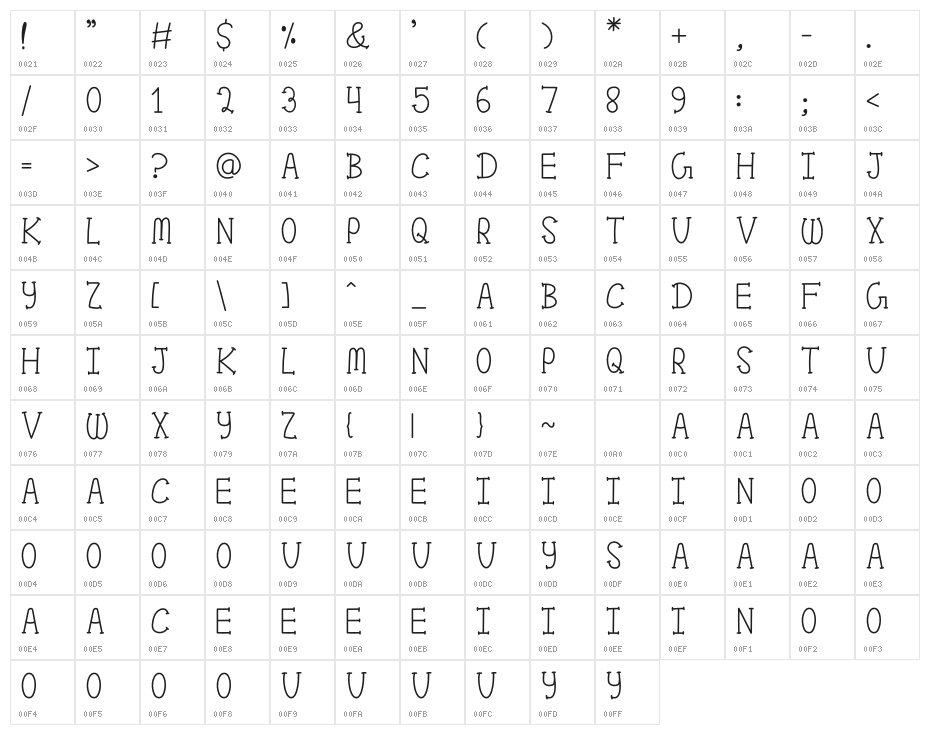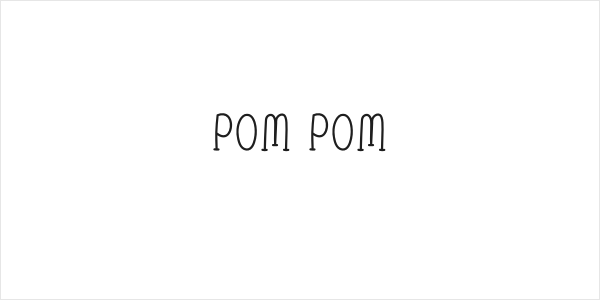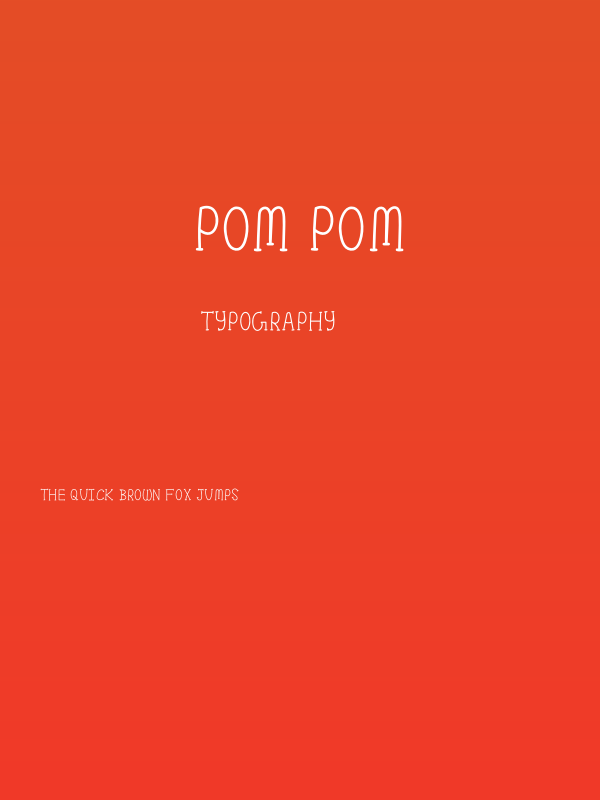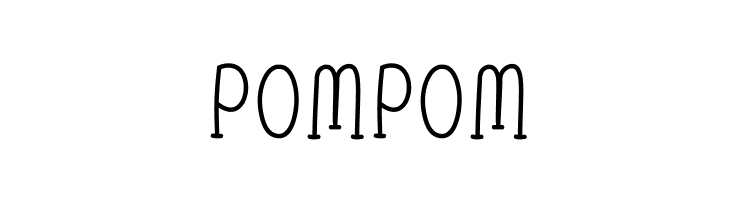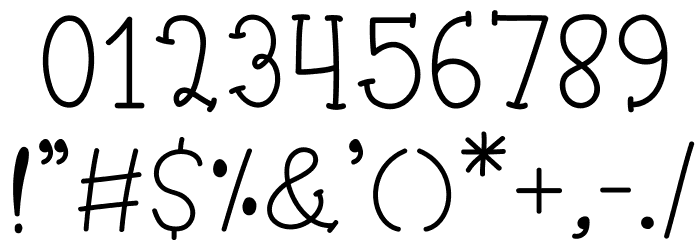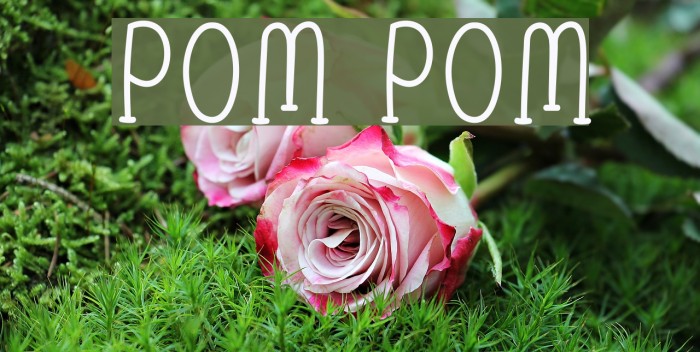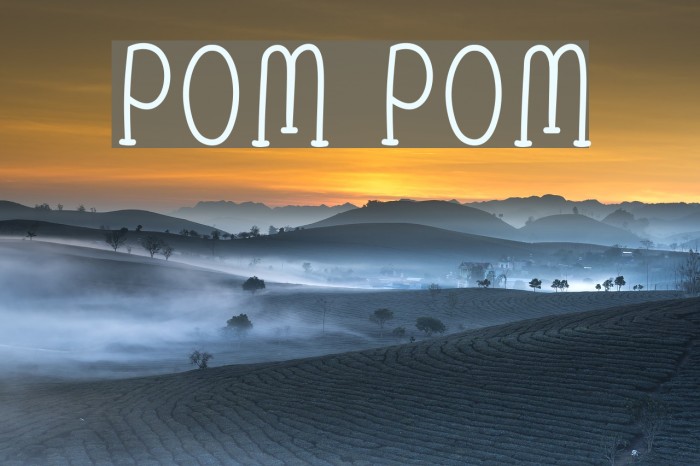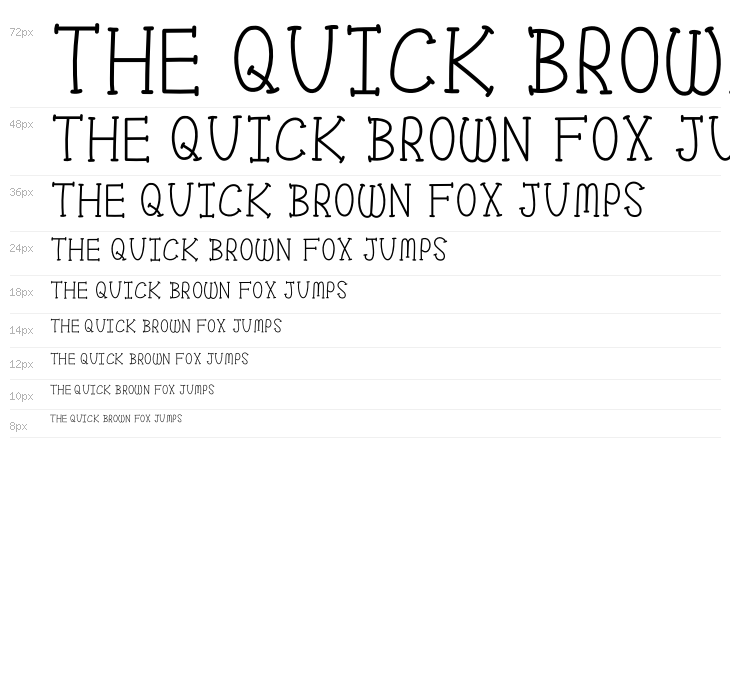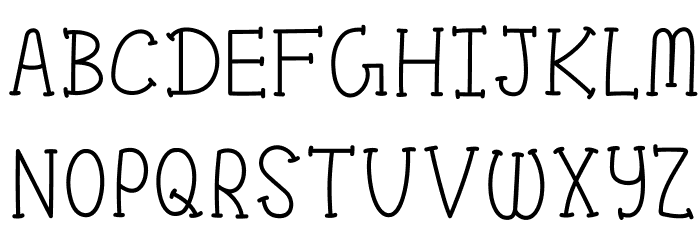
Pom Pom Font
Pom Pom Description
This playful and whimsical font features rounded, bubbly serifs and a hand-drawn aesthetic. Each character is uniquely crafted with a sense of fun and creativity, making it ideal for projects that require a lighthearted and informal touch. The letters are slightly irregular, adding to the charm and personality of the font. The numbers and special characters maintain the same playful style, ensuring consistency across all text elements. This font is perfect for children's books, party invitations, and any design that aims to evoke joy and playfulness.
POM-POM UPPERCASE
POM-POM LOWERCASE
POM-POM OTHER CHARS
| Overall Style | Whimsical, Playful |
| Proposed Projects | Ideal for children's books, party invitations, playful branding, and creative posters. |